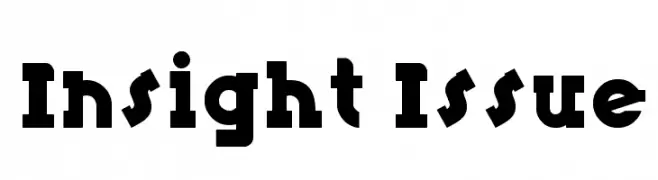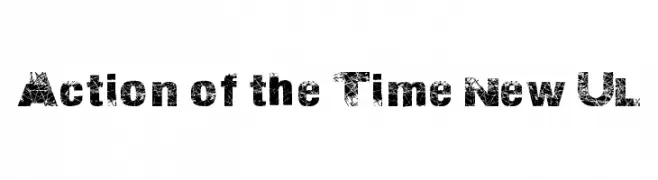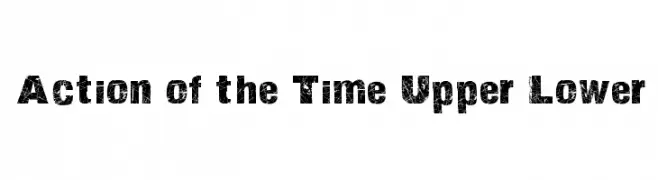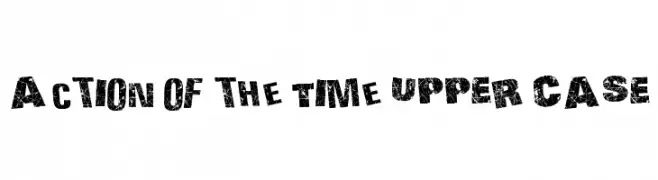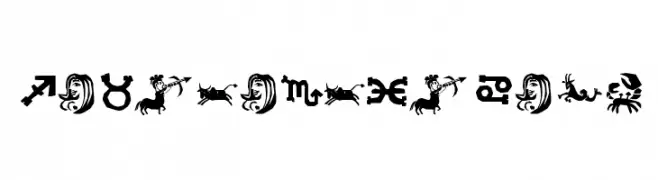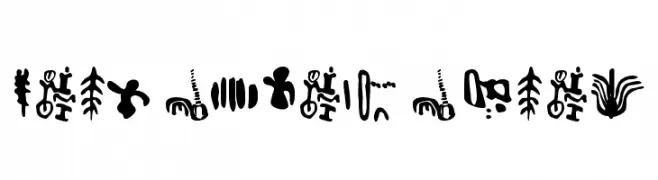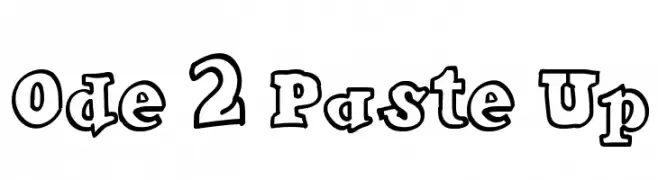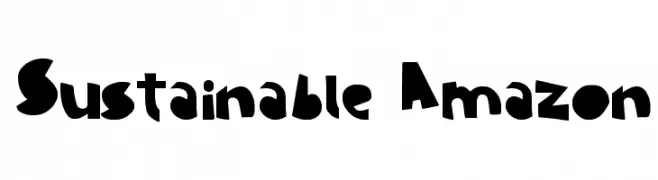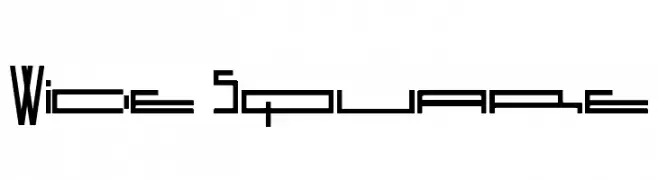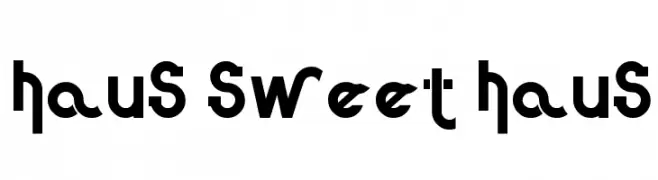
A bold, playful font with geometric flair and strong presence.
A dot matrix style font with a retro digital display aesthetic.
A bold, geometric font with a decorative, Sanskrit-inspired style.
A geometric and decorative font inspired by traditional Sanskrit script with modern elements.
Whimsical, illustrated font with various quirky car drawings.
A bold, decorative symbol font with a scorpion motif.
A bold, distressed font with a cracked texture for an edgy look.
A whimsical, circus-inspired font with bold, decorative characters.
A decorative font featuring intricately designed zodiac symbols.
A bold, distressed font with a grunge, textured appearance.
A pictographic, decorative font mimicking ancient stone carvings.
A bold, playful font with a hand-drawn, cartoonish style.
A bold, playful font with whimsical and irregular character shapes.
A bold, geometric font with wide, square-shaped characters and a modern aesthetic.
A bold, playful font with rounded edges and a modern-retro style.
A bold, distressed font with a rugged, vintage appearance.
A classic serif font with elegant, refined strokes and pronounced serifs.
A bold dingbat font of sports-themed pictograms.
A bold, geometric font with a modern and strong presence.
A bold, geometric font with a retro 1960s pop culture vibe.
A bold, angular font with a metallic and industrial aesthetic.